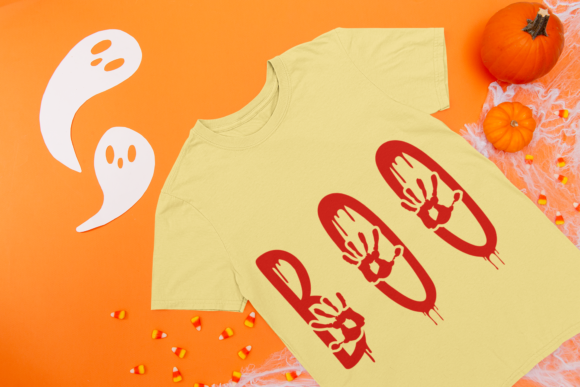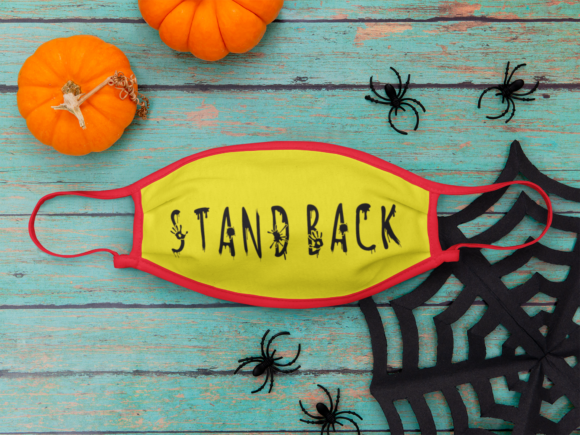
Unleash the Scream: The Magic of Caty Does Horror Font
As a designer, have you ever been brainstorming ideas for a spooky project and suddenly the perfect font pops into your mind? It’s that moment when everything falls into place, and you know you’ve found the perfect piece to elevate your design. For me, that moment came when I stumbled upon the eerie yet captivating Caty Does Horror Font. This cool and spooky decorative font is a game-changer for any design project that requires a touch of horror and mystery.
Caty Does Horror Font is a versatile tool that can add a spectacular look to anything from Halloween crafts to horror movie posters, t-shirts, and more. Its unique design and feel make it an invaluable asset for designers looking to create a lasting impression. Whether you’re working on a project for a client or just want to unleash your creative side, Caty Does Horror Font is sure to deliver.
Caty Does Horror Font Key Features
- Font Size: The font is available in a single weight, making it suitable for various design applications. However, it’s recommended to use it between 12pt and 24pt for optimal readability.
- Unique Characteristics: The font features a unique blend of gothic and horror-inspired elements, with intricate details and bold lines that evoke a sense of eeriness and mystery.
Caty Does Horror Font Review
Overall, I’d say Caty Does Horror Font has its moments, but it’s not without its flaws. Let’s dive in and see what’s working and what’s not.
- Unique aesthetic: Caty Does Horror Font has a distinct, hand-drawn feel that sets it apart from more traditional horror fonts.
- Good for titles and headings: The font is well-suited for use in titles and headings, adding a touch of eeriness to your designs.
- Highly customizable: The font offers a range of customization options, allowing you to fine-tune the look to fit your specific needs.
- Limited character set: Caty Does Horror Font has a relatively small character set, which may limit its use in longer blocks of text.
- Not ideal for body text: While the font works well for titles and headings, it’s not the most readable choice for body text.
- Some characters may not render correctly: I noticed a few instances where certain characters didn’t render as expected, which can be frustrating.
Overall, Caty Does Horror Font is a solid choice for designers looking to add a touch of horror flair to their work. While it has its limitations, the unique aesthetic and high level of customization make it a worthwhile addition to any font collection.
Practical Application Guide for Caty Does Horror Font
For a more dramatic effect, use the Caty Does Horror Font in conjunction with a dark color scheme and bold imagery. Common use cases include horror movie posters, spooky Halloween decorations, and creepy typography elements. Experiment with different font sizes and styles to create a sense of tension and foreboding.
Q: What is the recommended font size for Caty Does Horror Font?
The recommended font size for Caty Does Horror Font is between 12pt and 24pt. This range provides optimal readability and visual impact. However, feel free to experiment with different font sizes to achieve the desired effect for your design project.